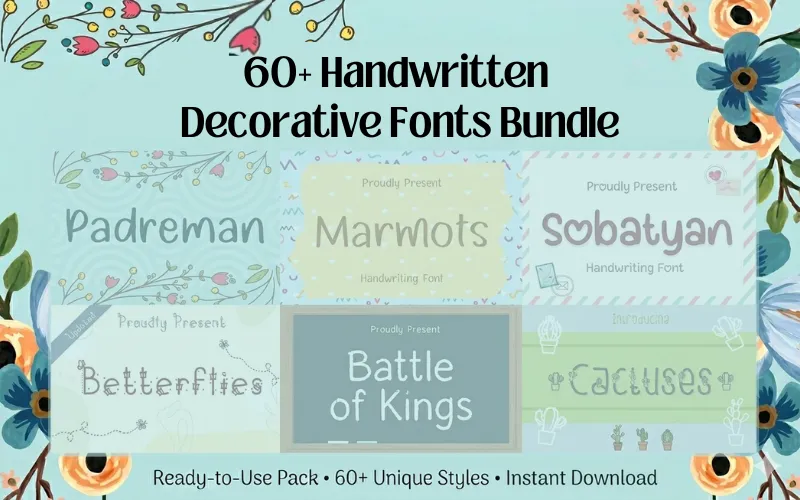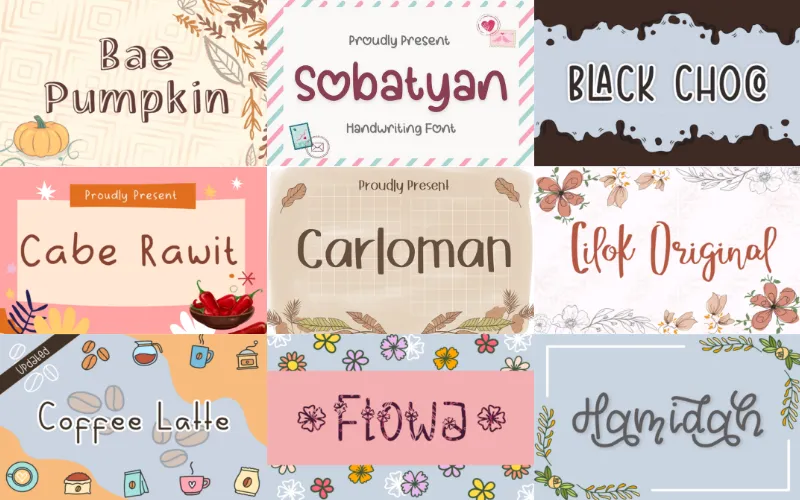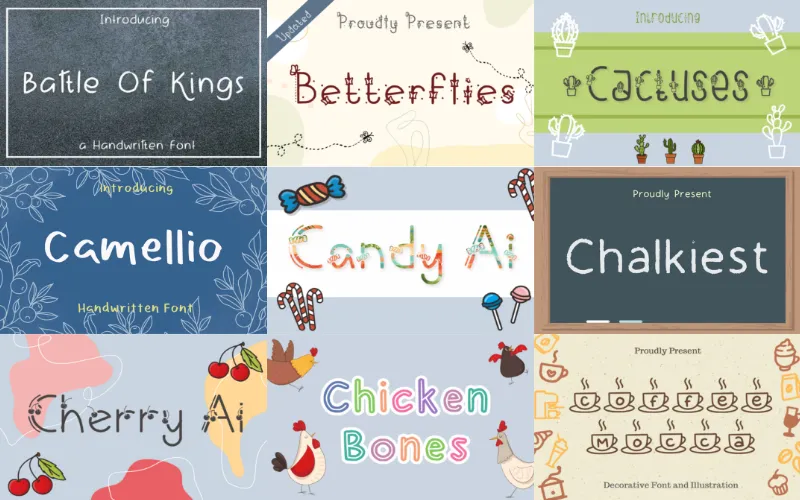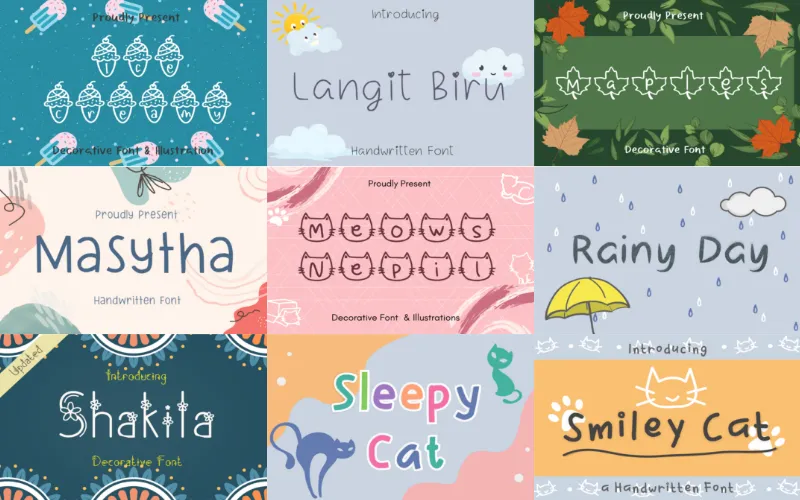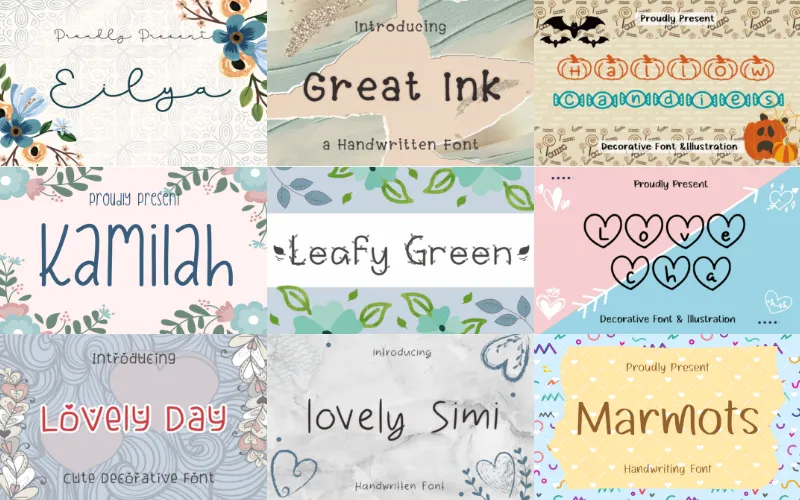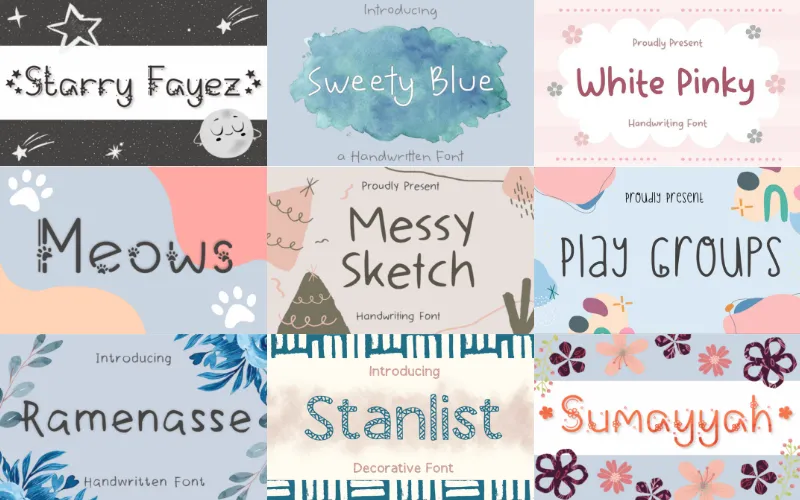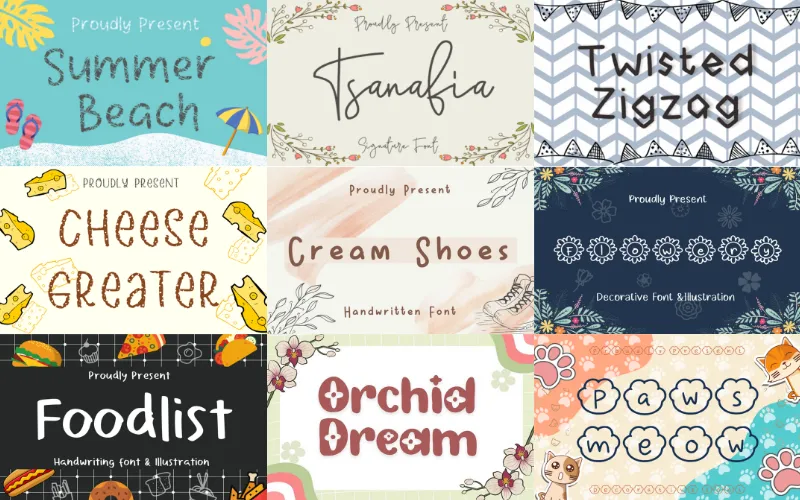
• 60+ Handwritten Decorative Fonts
• Versatile Typography for Creative Projects
Finding the perfect font to give your project a personal, professional touch isn’t always easy. That’s why we’ve curated the –
Handwritten Decorative Fonts Bundle
A collection of 60+ unique fonts designed to elevate your branding, crafting, & digital designs.
These fonts feature a vibrant mix of Display, Script, and Handwriting styles, ranging from playful & whimsical to clean and modern.
What You Get In This Bundle:
• Adzkia font
• Bae Pumpkin font
• Candy Ai font
• Eilya font
• Foodlist font
• Great Ink font
• Hamidah font
Preview of Handwritten Decorative Fonts Bundle:
This is a collage of fonts including Battle of Kings and Chicken Bones from a handwritten decorative fonts bundle.
This is a collage of fonts including Bae Pumpkin and Black Choc from a handwritten decorative fonts bundle.
this is a collage of fonts including Langit Biru and Sleepy Cat from a handwritten decorative fonts bundle.
This is a collage of fonts including Eilya and Leafy Green from a handwritten decorative fonts bundle.
This is a collage of fonts including Starry Fayez and Messy Sketch from a handwritten decorative fonts bundle.
This is a collage of fonts including Summer Beach and Orchid Dream from a handwritten decorative fonts bundle